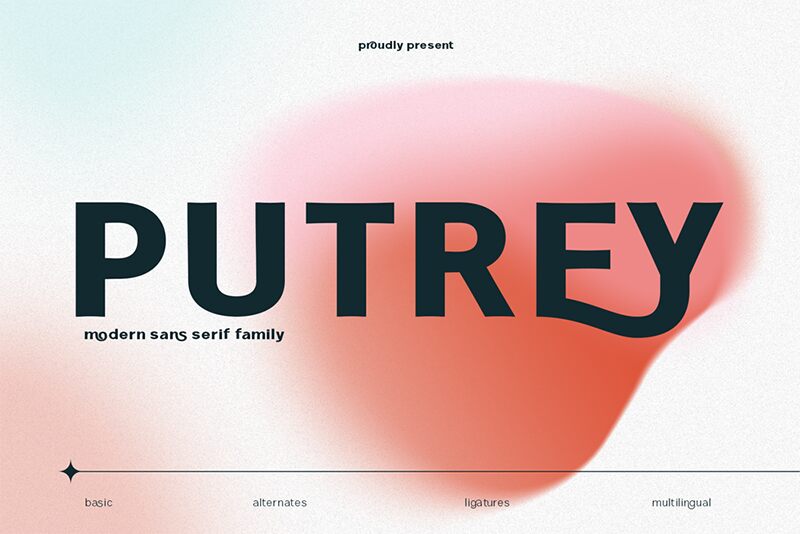
Putrey is a sleek and modern sans serif font designed by Alit Design. With its semi-light weight, it strikes the perfect balance between legibility and elegance. This versatile font is suitable for a wide range of projects, from minimalist logos to stylish headings and body text. Its clean lines make it particularly well-suited for fashion, beauty, and lifestyle brands looking to establish a sophisticated aesthetic. From websites to print materials, Putrey's refined simplicity will elevate any design project with its subtle yet impactful presence. Add some character to your next project with the Putrey semi-light font!
Putrey